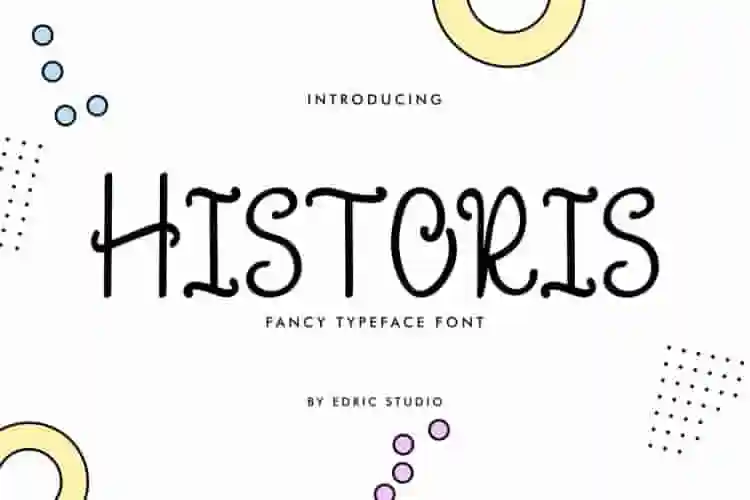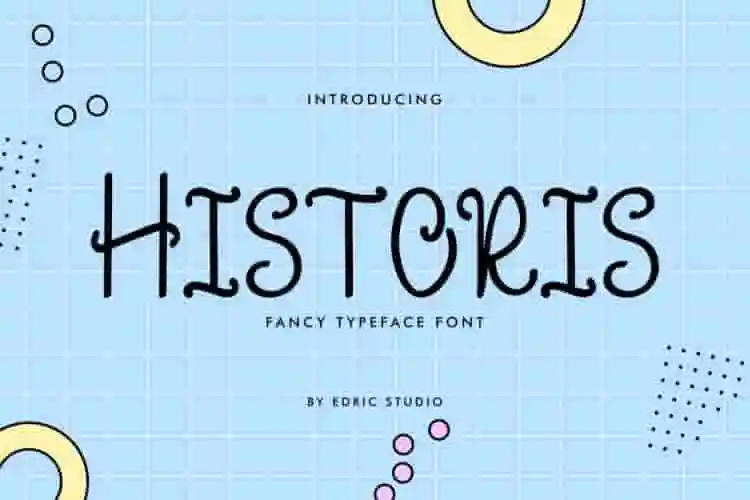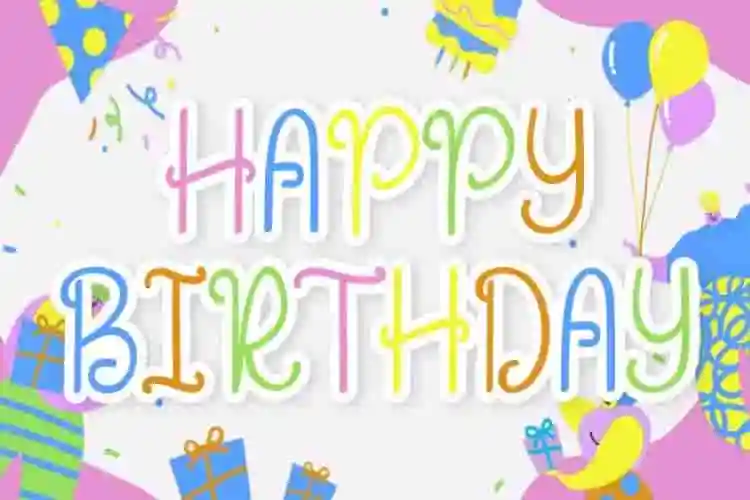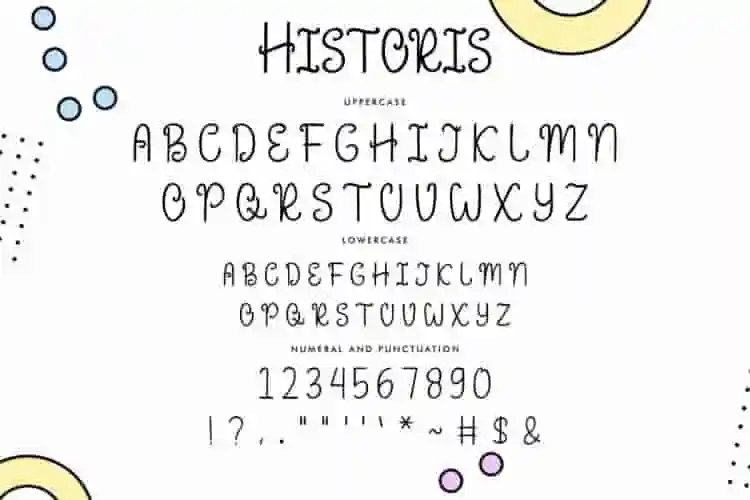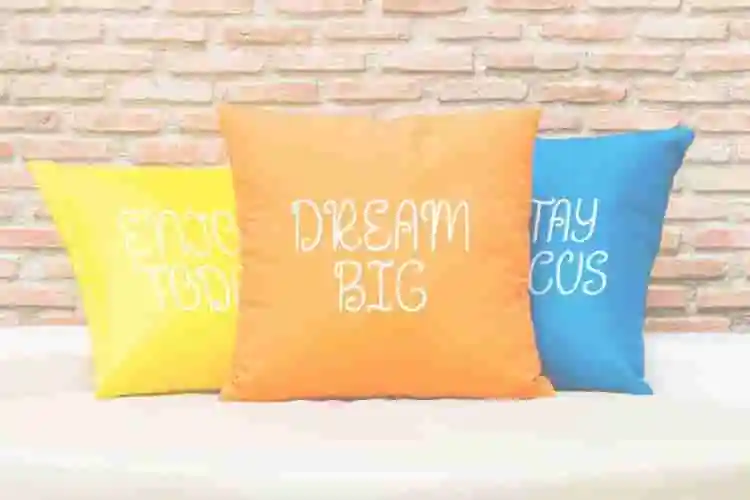
Historis Curly Display Font
Historis Font is a fancy display font with curly style. It was made in our Studio, Indonesia. Historis Font is an exclusive handmade font with unique styles : fun, casual, stylish and classic style. It has a great characters set, perfectly managed with well spaced and kerning. Historis Font will be great for any projects  including : branding, logo (with extended license), stationery, business card, signage, flyer, brochure etc. Many industries will be match for this typeface: school, wedding, events, non profits foundation, florist, gardening, makeup artist, travel, hotel, musician etc
Step into a world of charm and creativity with Historis Curly Display Font – a uniquely styled typeface that blends retro flair with playful curls and artistic detail. Inspired by classic vintage typography and ornate sign painting styles, Historis is perfect for projects that demand both attention and personality.
Use it for logos, posters, packaging, book covers, boutique branding, invitations, merch designs, and more. Whether you’re aiming for a nostalgic vibe or an eye-catching decorative look, Historis adds just the right amount of flair.
Introducing Historis Curly Display Font, a bold and decorative typeface inspired by classic retro signage and artistic letterforms.